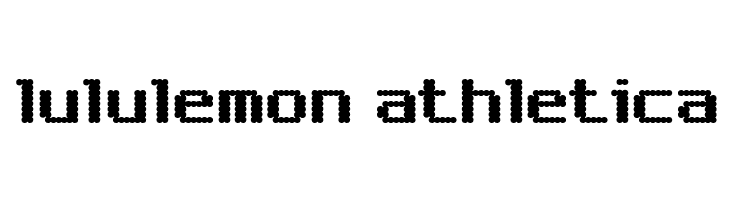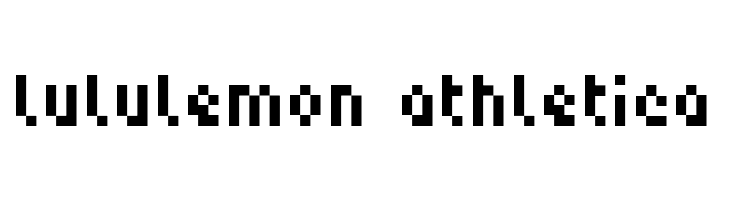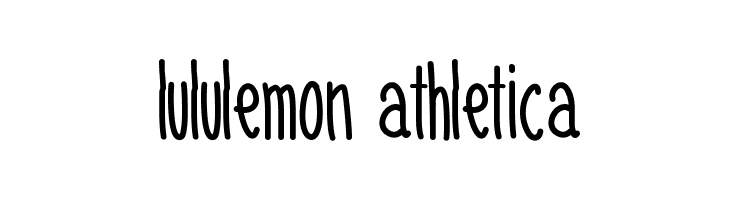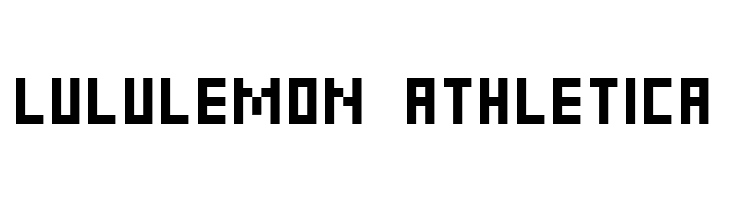
( Tami Vu - thepinksushi.com )
A playful, hand-drawn font with tall, narrow characters and a whimsical style.
( Jos Tan - notes.jos.net.au )
A pixelated, monospaced font with a retro digital aesthetic.
( Jos Tan - notes.jos.net.au )
A pixelated, retro-style font with a digital, blocky appearance.
( 010Bus )
A pixelated, monospaced typeface with a retro digital aesthetic.
A sleek, modern font with geometric and minimalist design.